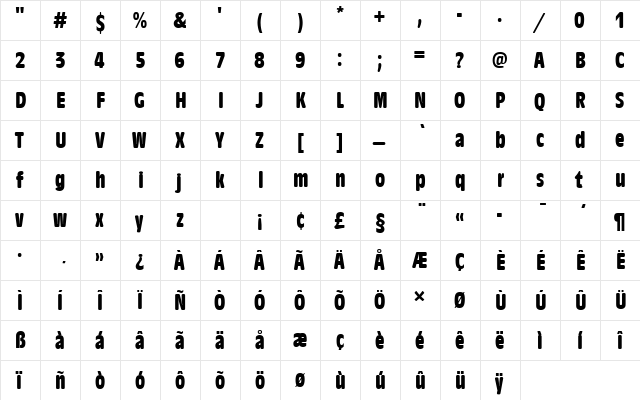
AntiqueOliTBolConRo1 Regular
Design Context for AntiqueOliTBolConRo1 Typeface
AntiqueOliTBolConRo1 wears its vintage influences proudly, with letterforms that recall mid-century signage, classic packaging, and nostalgia-driven design.
Font Pairing: Combine AntiqueOliTBolConRo1 with a simple slab or neutral sans — period-accurate companions reinforce the vintage feel without competing for attention.
Pro Tip: Use AntiqueOliTBolConRo1 for headlines and pull quotes rather than body copy — its personality is best appreciated in short, focused bursts.